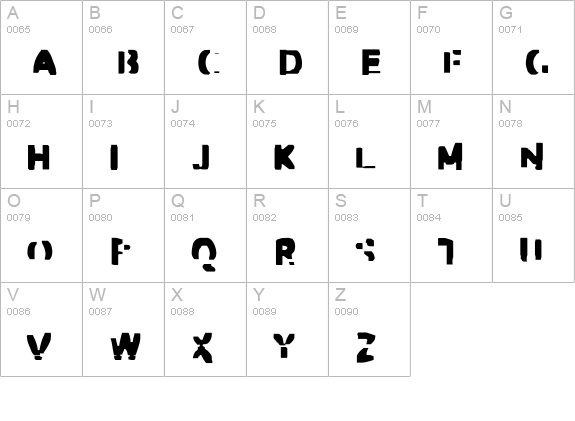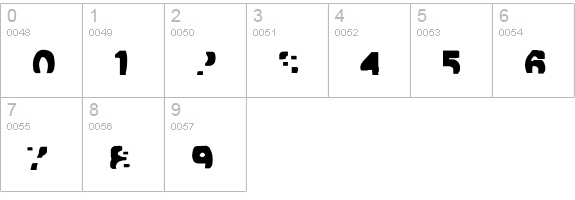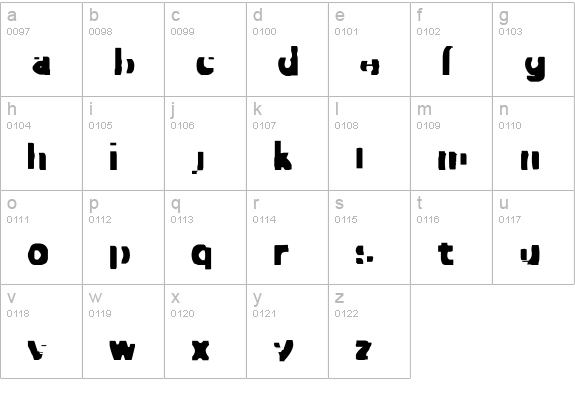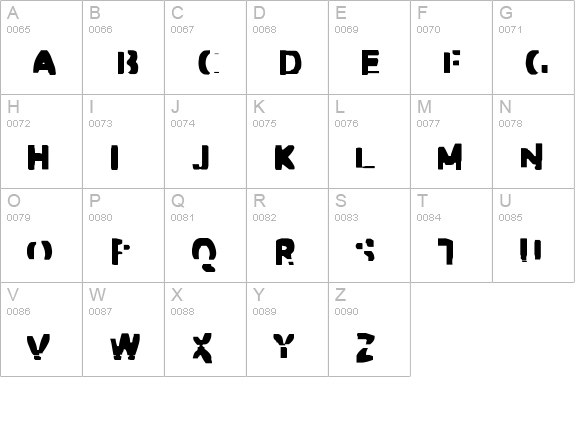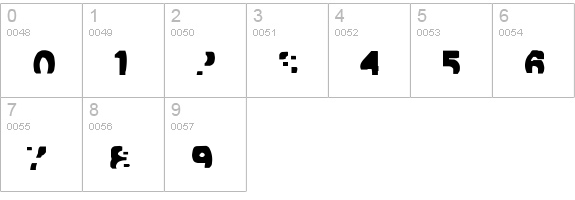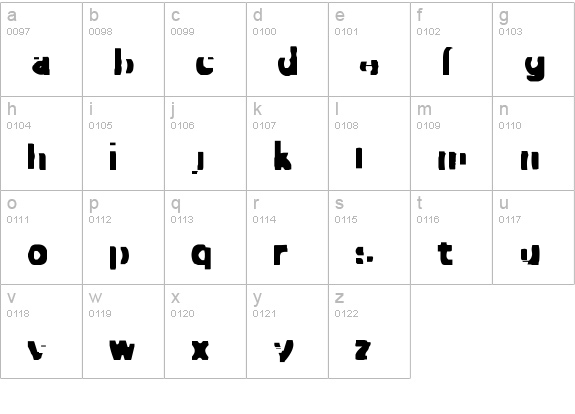
Dirty-Four font is a unique and edgy typeface that exudes a raw and grungy aesthetic. Its rough and distressed appearance gives any design a rebellious and urban vibe. Perfect for projects that require a bold and unconventional look, Dirty-Four font is sure to make a statement. What makes Dirty-Four font even more appealing is that it is available for free download at FontsMarket.com. This means you can easily access this striking font without any cost, making it a valuable addition to your font collection. Don't miss out on the opportunity to add Dirty-Four font to your design arsenal and unleash its powerful and gritty charm in your creative projects.